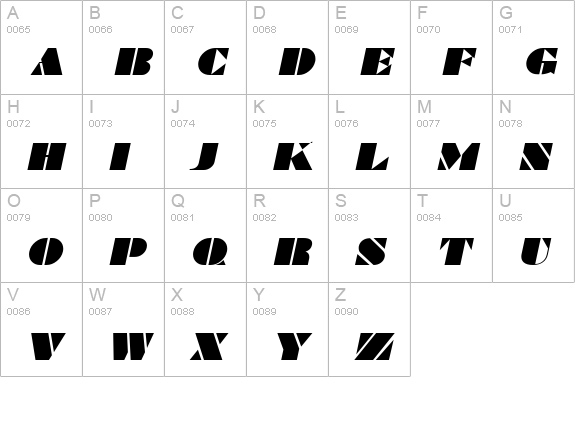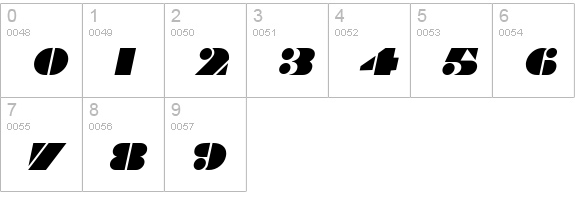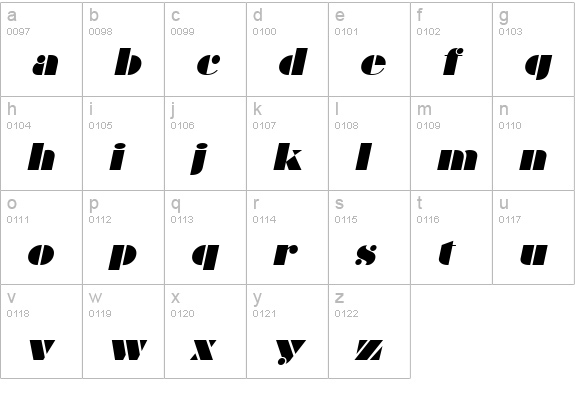
Bravado Italic Font Details
Bravado Italic is a distinctive, italic variant in the Bravado typeface family \xE2\x80\x94 well suited to design and typography projects.
Bravado Italic font exudes a sense of confidence and boldness with its sleek and elegant design. The italicized characters add a touch of sophistication to any project, making it a versatile choice for both professional and creative endeavors. The flowing curves and sharp angles of Bravado Italic create a dynamic and engaging visual impact, drawing the eye and commanding attention. Best of all, Bravado Italic font is available for free download at FontsMarket.com. This means you can easily access this stylish and impactful typeface to elevate your designs without any cost. Don't miss out on the opportunity to enhance your projects with the striking beauty of Bravado Italic font - download it today and make a bold statement!